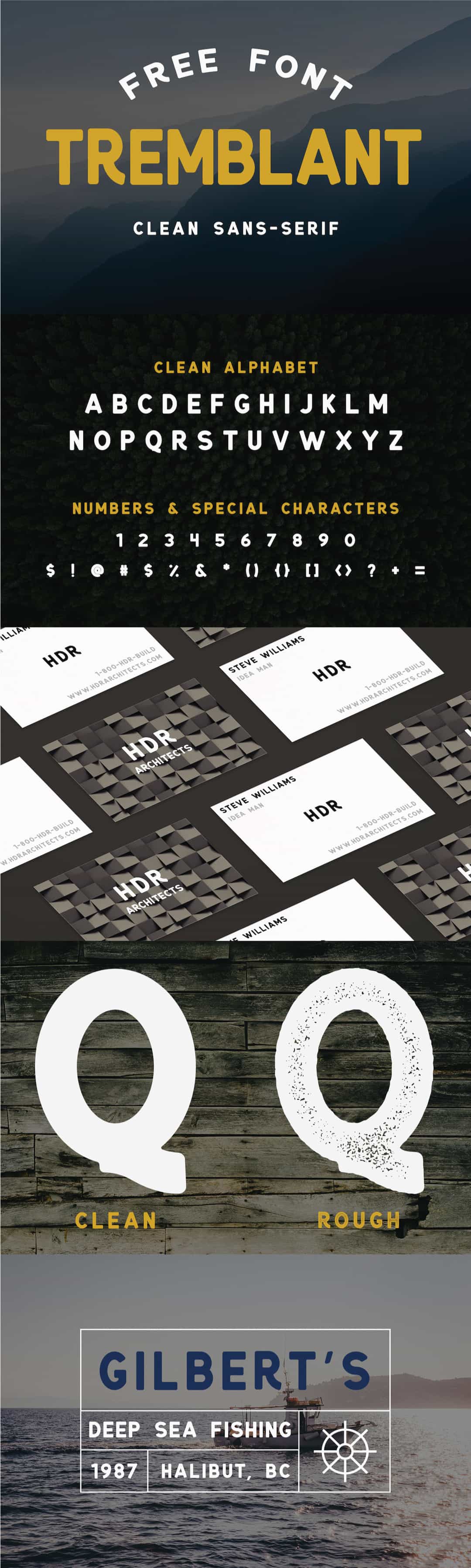
The Tremblant font was suggested by mountains. Henceforth the two can be downloaded, one can get the clean version and the other the rough one. Tremblant font can be met in the following product like badges, brandings, labels, apparels, headlines and signs, in the vintage or the adventure style as well as in the more modern ones.